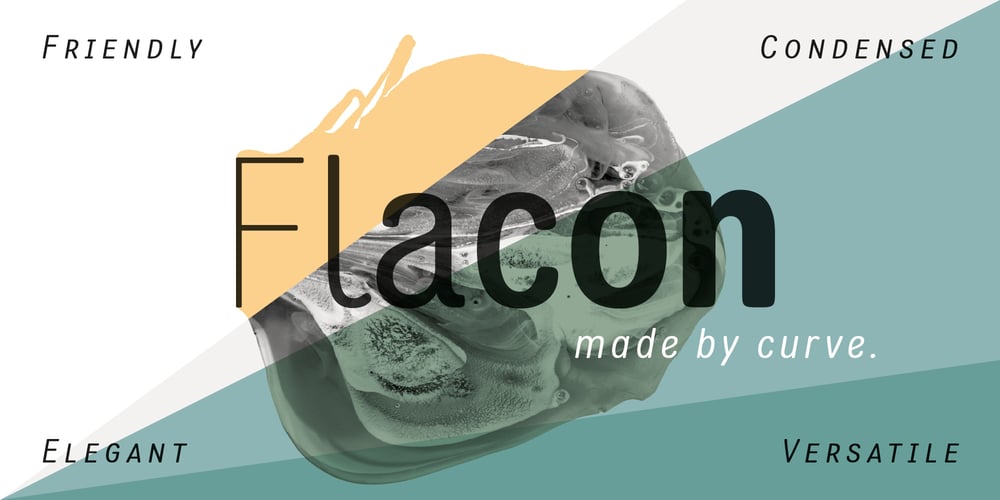
Flacon Font Family was designed by Christoph Ulherr and published by jpFonts. Flacon contains 14 styles and family package options. Flacon is a friendly, round and soft, yet elegant and extremely versatile typeface family with each seven weights for roman and italic. All fonts have an extended character set including small caps, ligatures and swash letters for better typography. Flacon can be used for texts as well as for headlines, logos, packaging, stationary and much more.